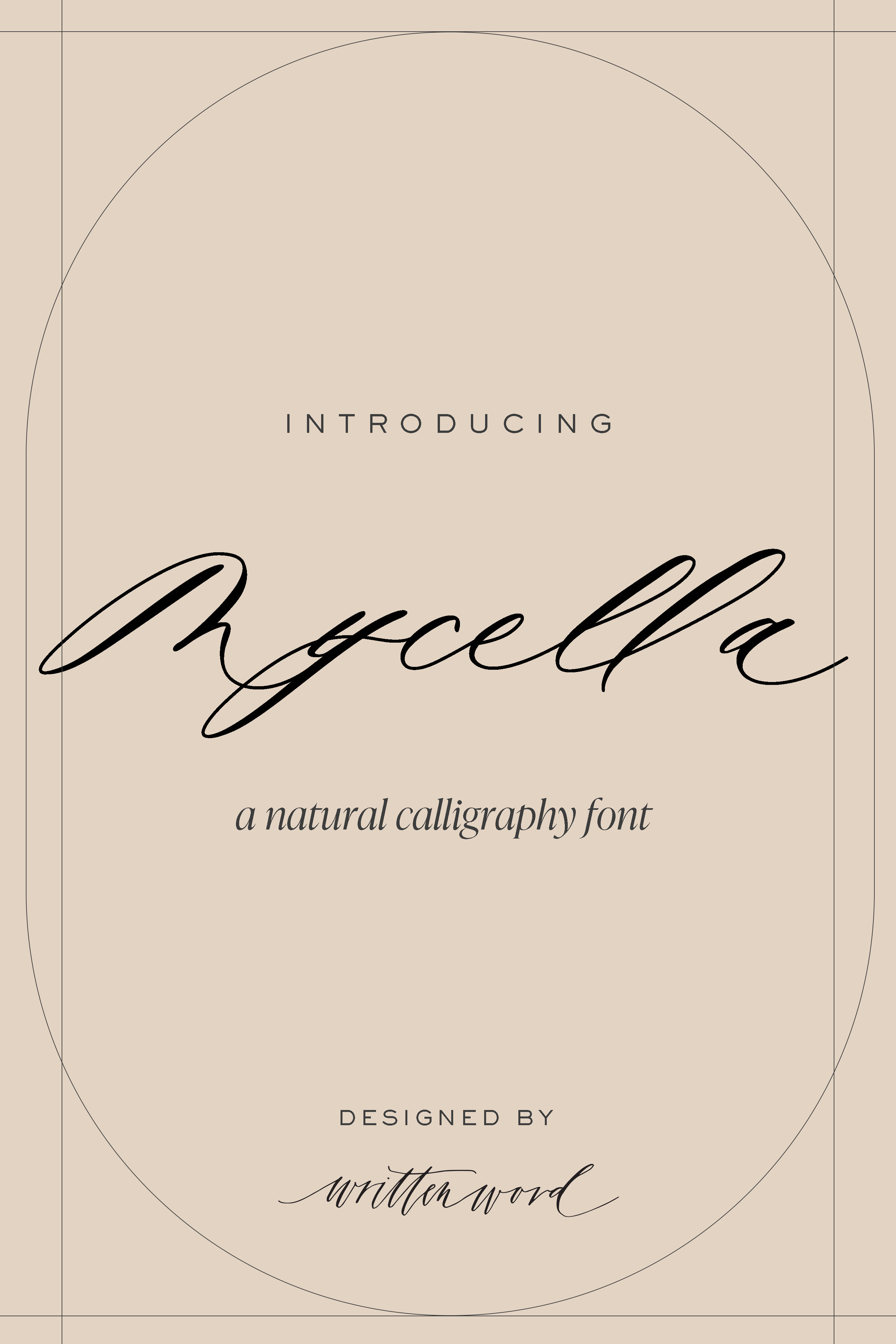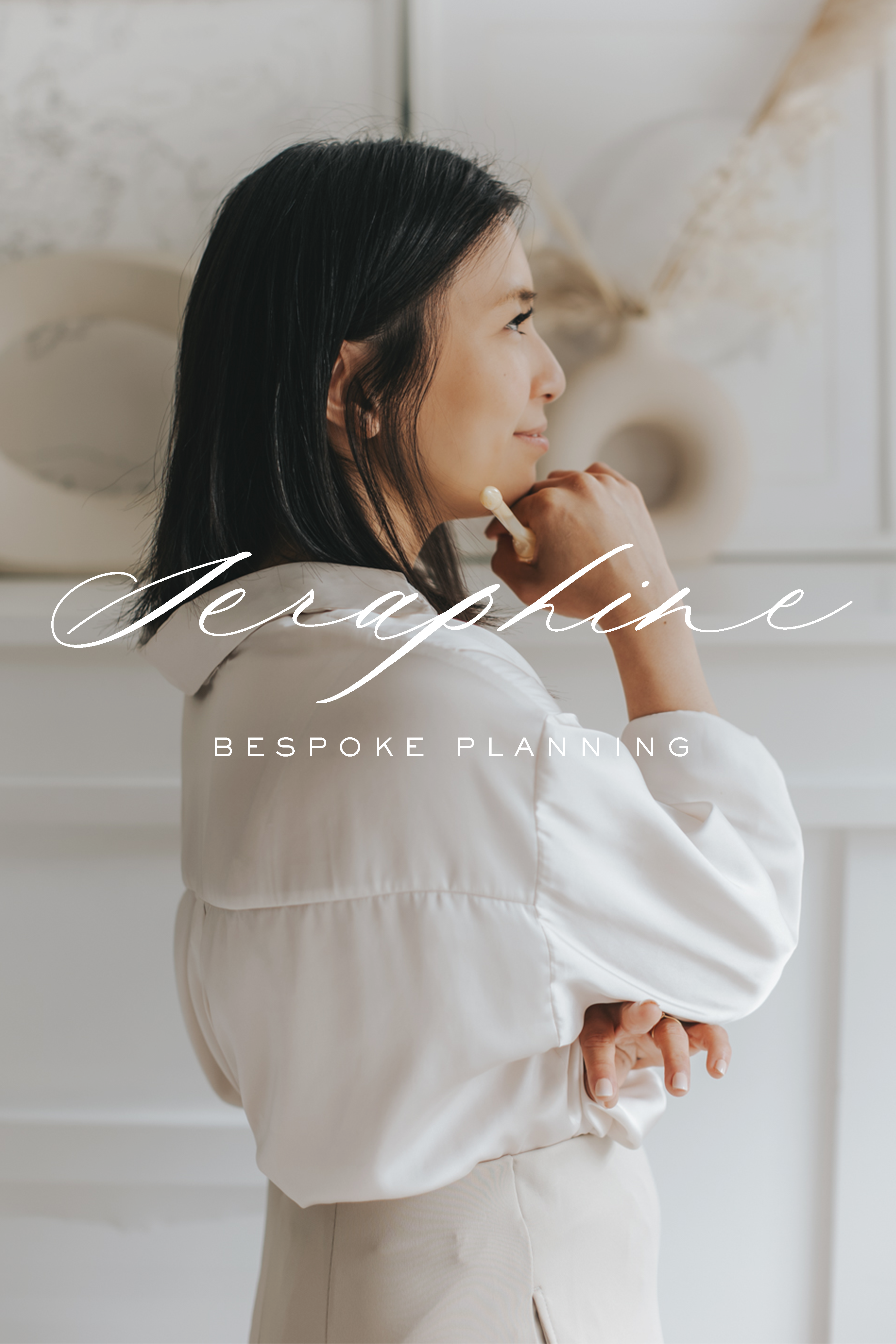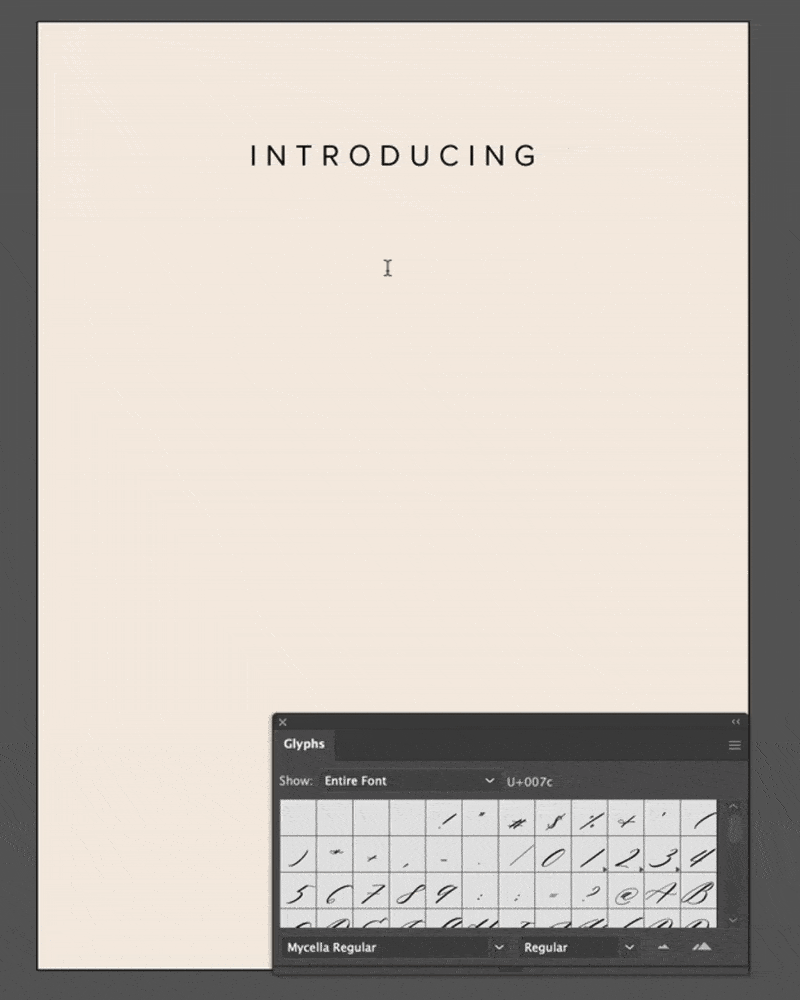
Mycella Calligraphy Font -
Introducing Mycella, a beautifully flowing, modern calligraphy font inspired by the graceful curves of chanterelle mushrooms, handwritten by Karla of Written word. Mycella is designed to bring an elegant, personal touch to any projectโwhether itโs wedding invitations, branding, or social media graphics.
What sets Mycella apart? It comes packed with tons of alternates and ligatures to give your designs a natural, hand-lettered look. Mix and match the unique character variations to create stunning, customized typography that feels truly one-of-a-kind. Please choose the license based on what you require.
- Full Uppercase & Lowercase Letters
- Extensive Alternates & Ligatures for a natural handwritten flow
- Numbers & Punctuation
- Multilingual Support